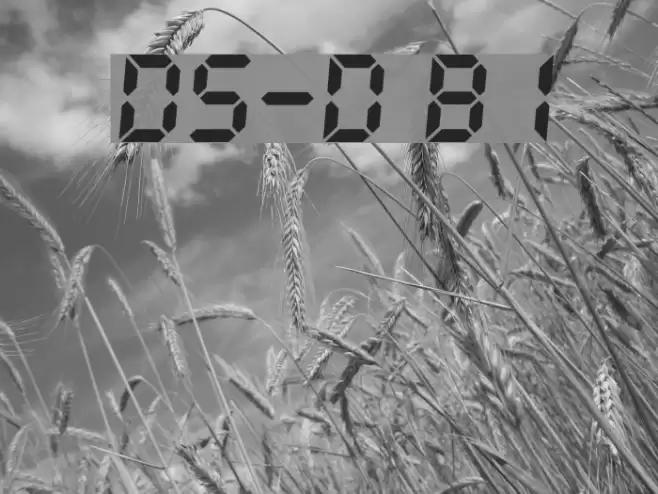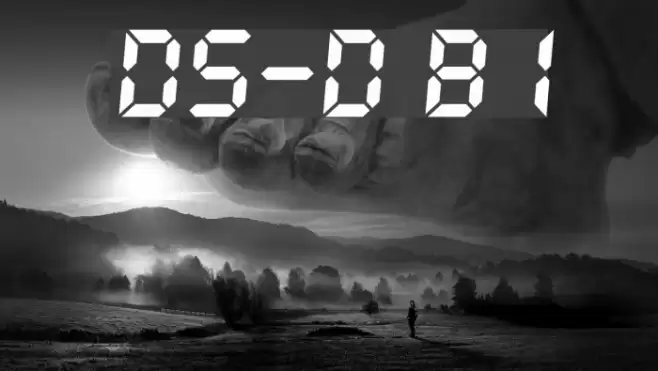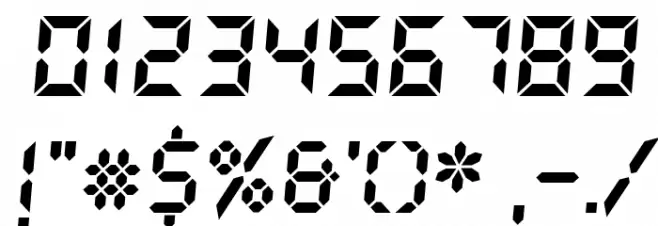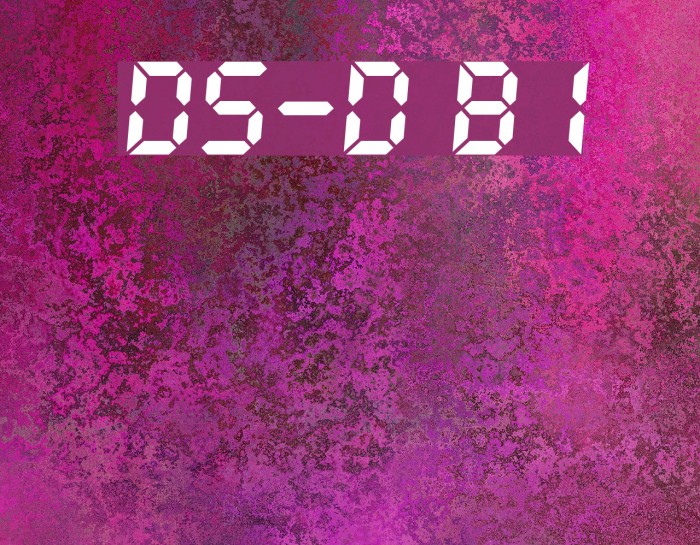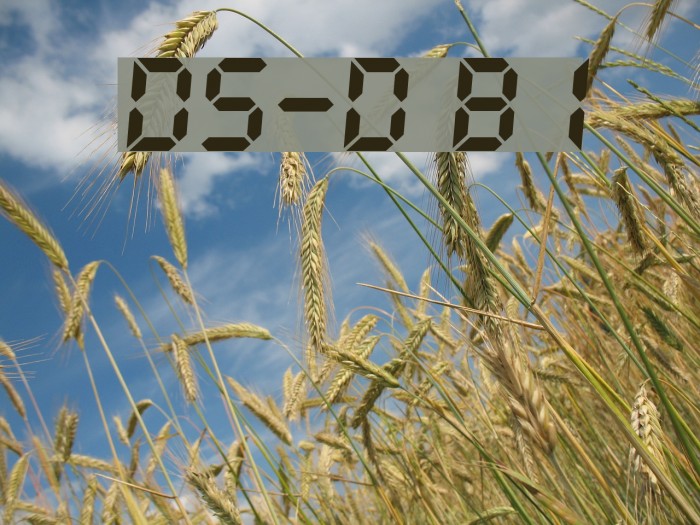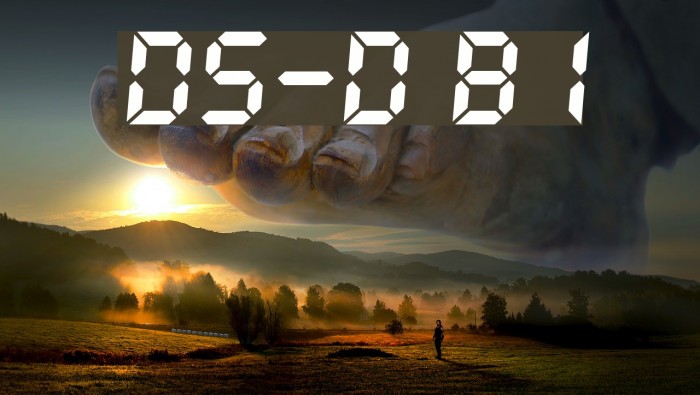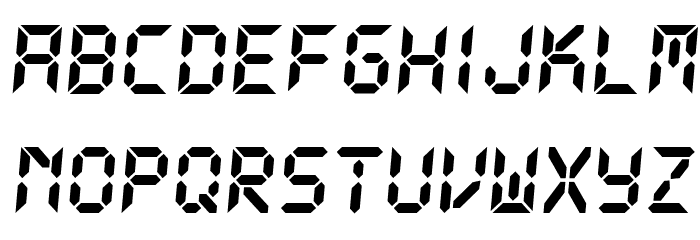
DS-Digital Bold Italic Font
DS-Digital Bold Italic Description
This font is a digital-inspired typeface that mimics the appearance of seven-segment displays commonly found in digital clocks and calculators. The characters are composed of angular, geometric segments that create a futuristic and technological aesthetic. The bold and italic styling adds a dynamic and modern touch, making it stand out with a distinctive slant. The uppercase and lowercase letters maintain a consistent style, while the numerals and special characters are designed to complement the overall digital theme. This font is ideal for projects that require a retro-futuristic or tech-oriented look.
A bold, italic digital-inspired font with a seven-segment display style from Uncategorized fonts.
- Proposed Projects: Ideal for digital-themed designs, tech branding, retro-futuristic projects, and electronic device interfaces.